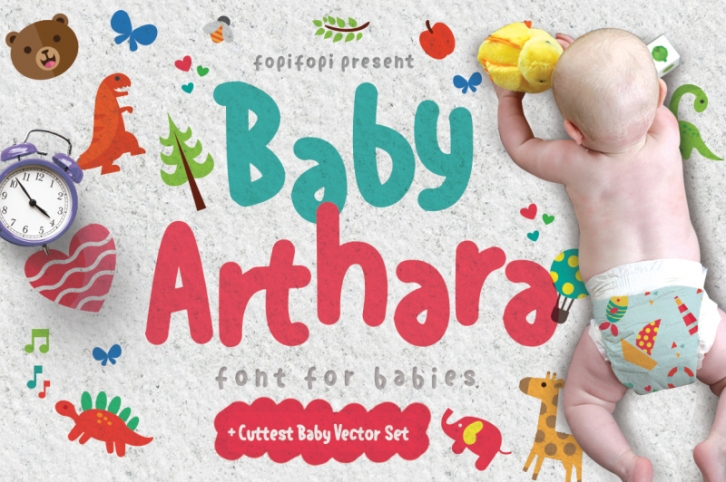
Baby Arthahara Typeface + Bonus FONT Download
Baby Arthahara Typeface + Bonus Font Download
Yo-Dad and Mom, greetings from Baby Arthara! Baby Arthara is a font for babies. The basic personalities of Baby Arthara are cuteness and cheerful. Better, since it’s not a loner, it comes with Bonus Baby Vector Pack. They are meant to cheer up anything they are put into: kids wear, baby shirt, baby jumpsuit, baby books, diapers, greeting card, birthday invitation,wrapping paper, etc . Literally, everything that sparks up the joy around!
• Numerals & Punctuations (OpenType Standard)
• Accents (Multilingual characters)
• Bonus Rare Vector “Baby Vector”